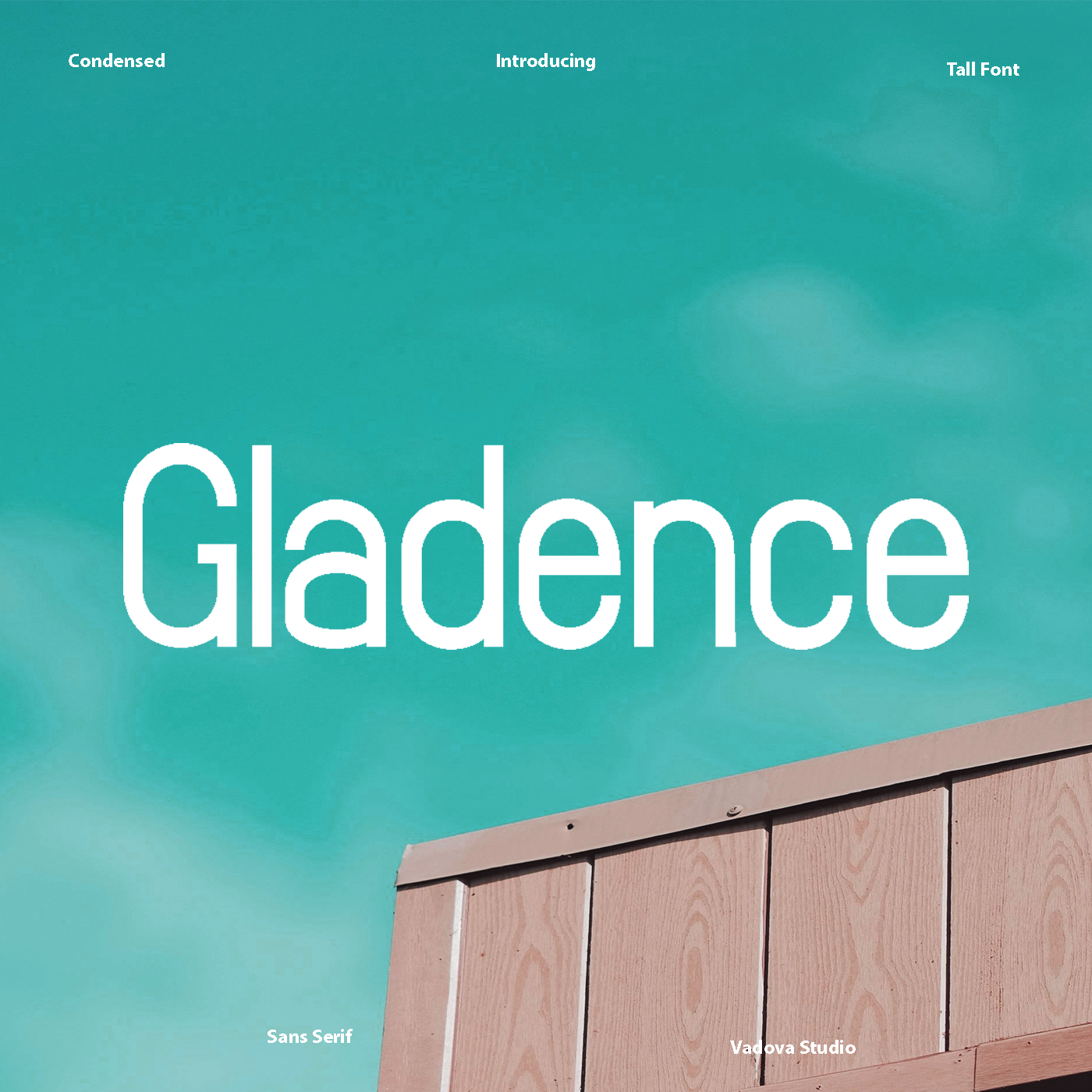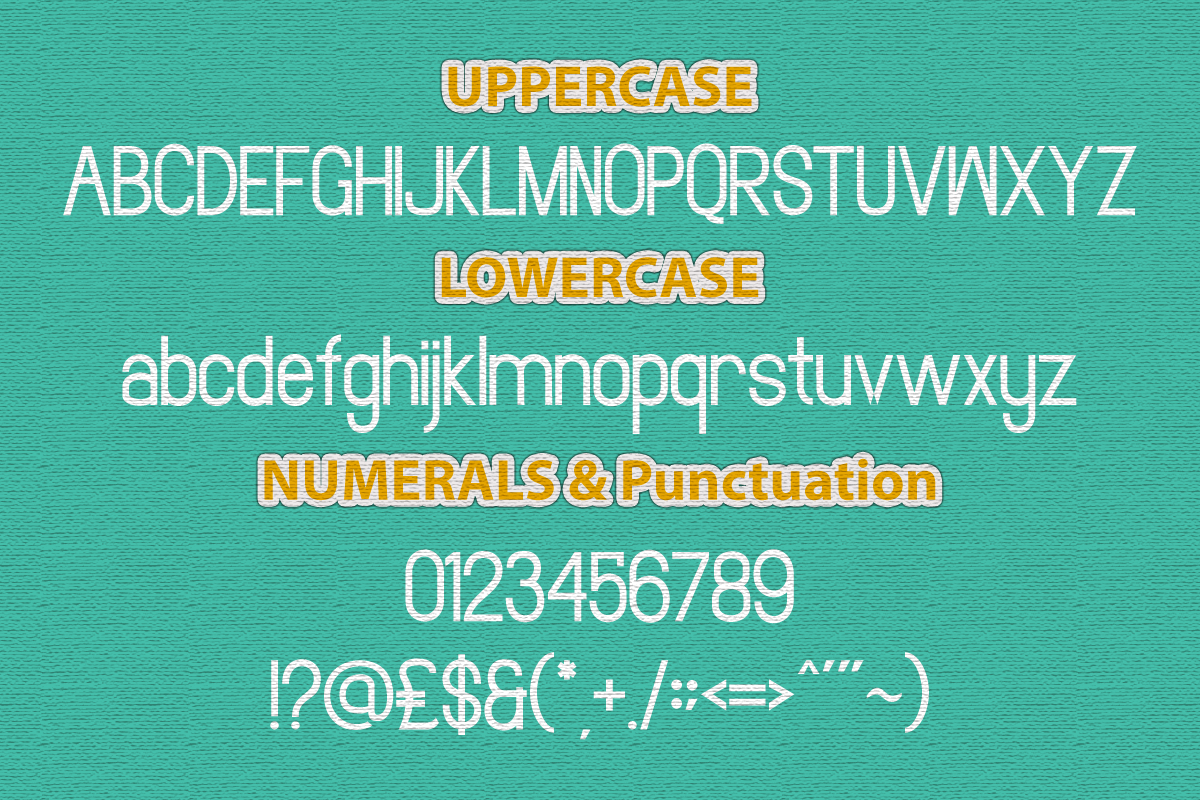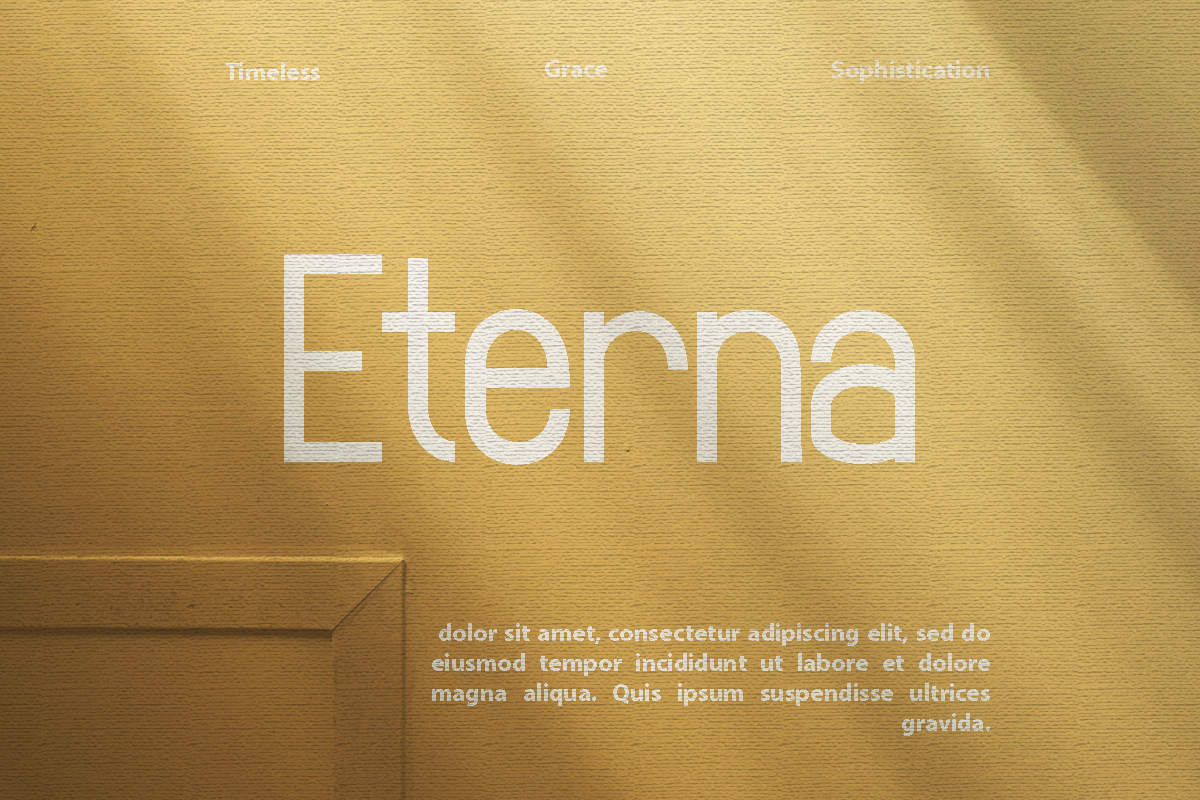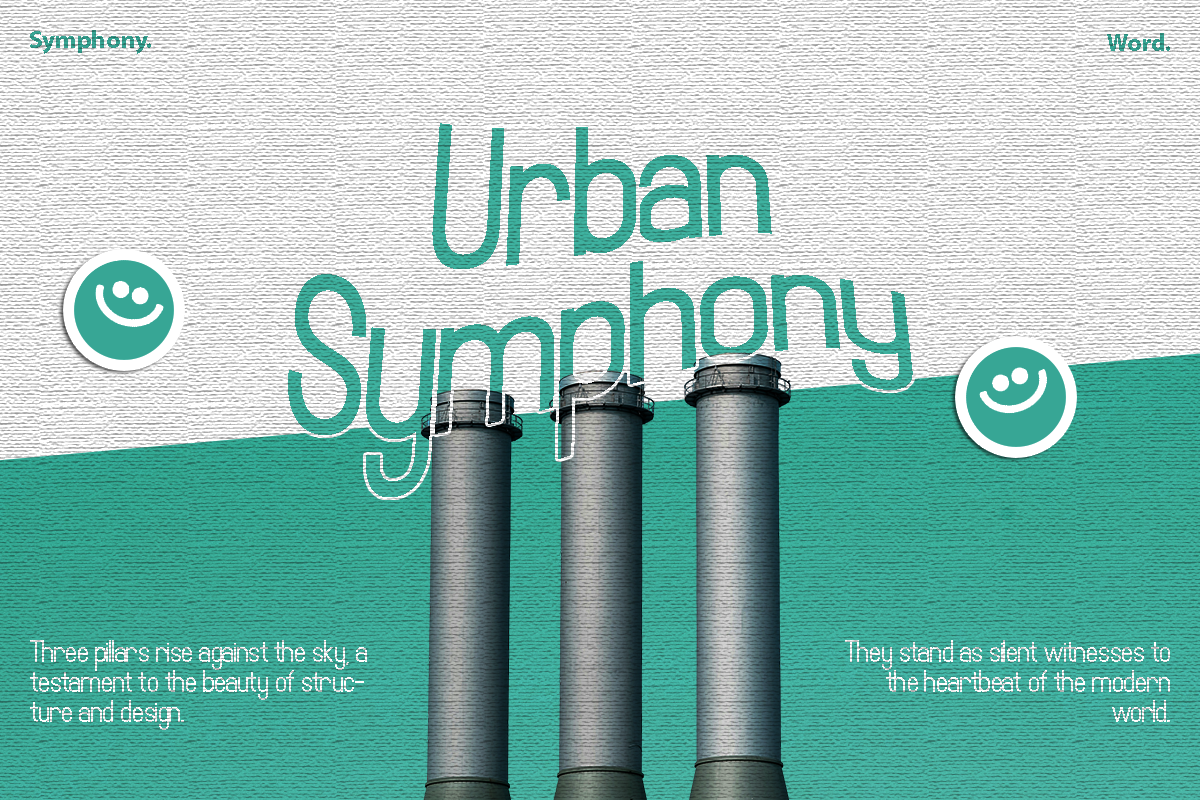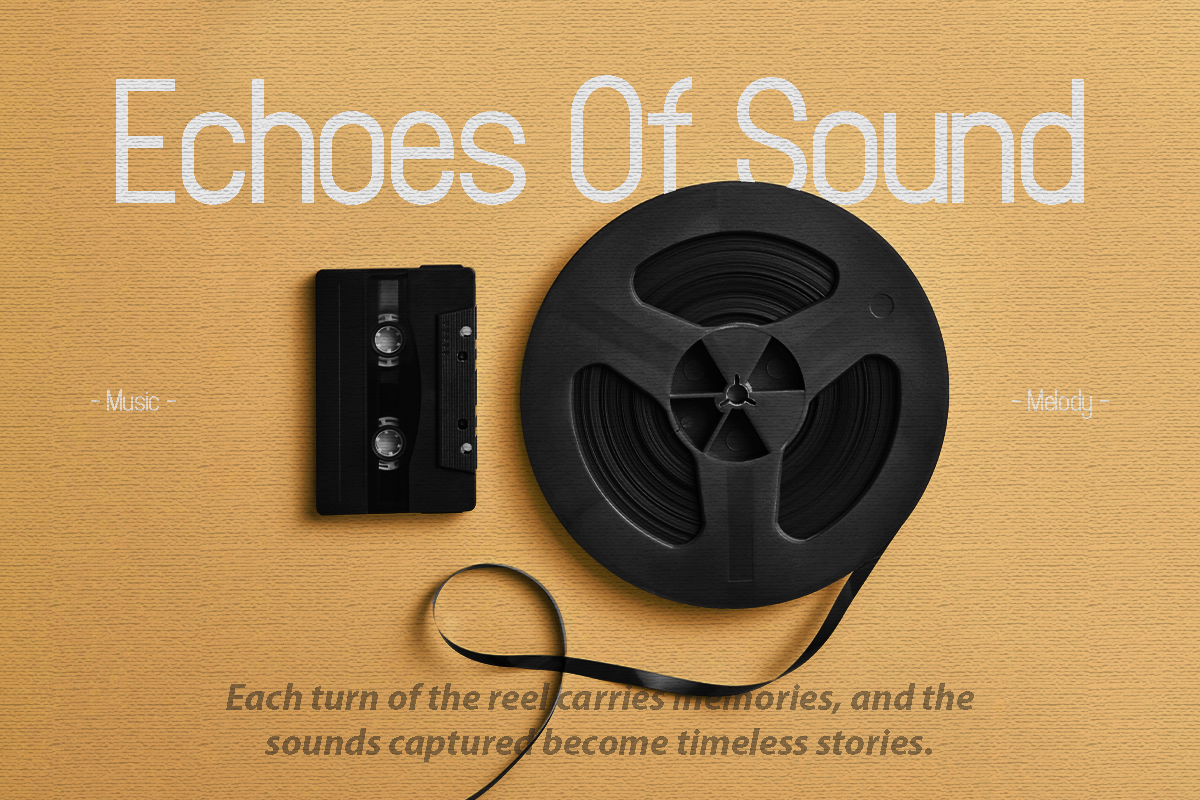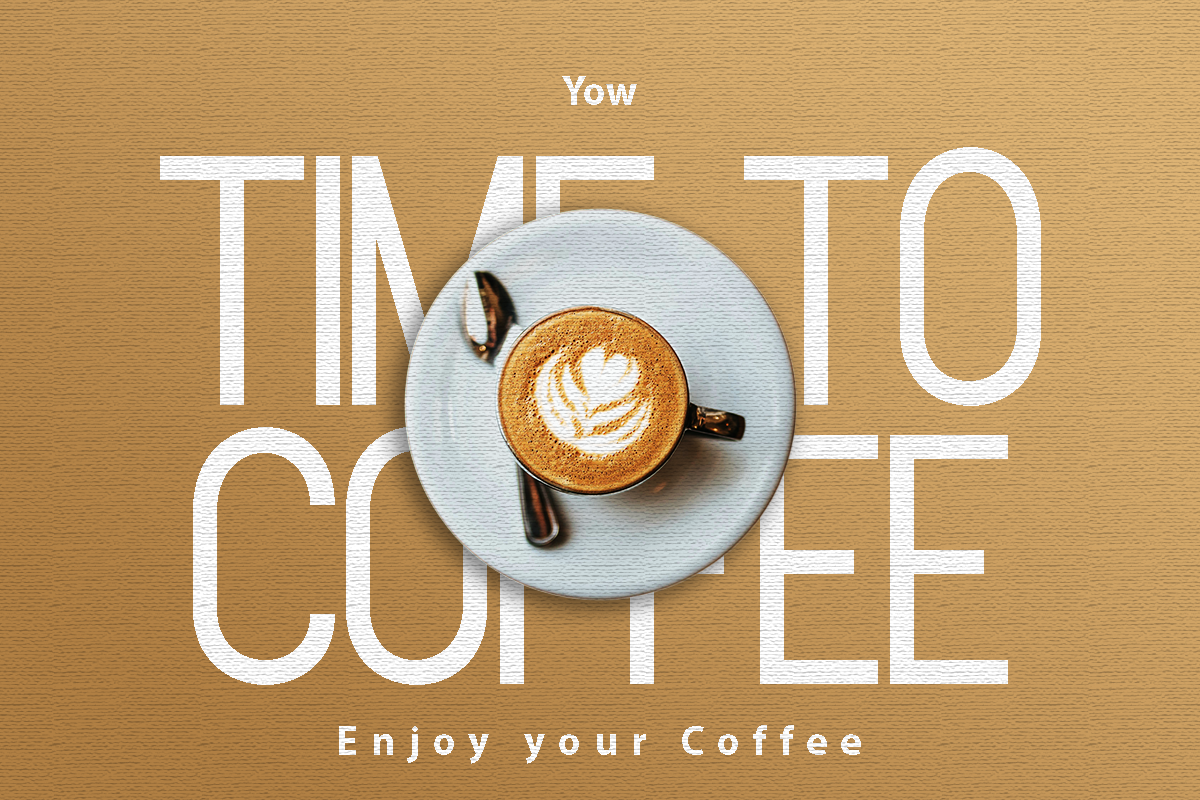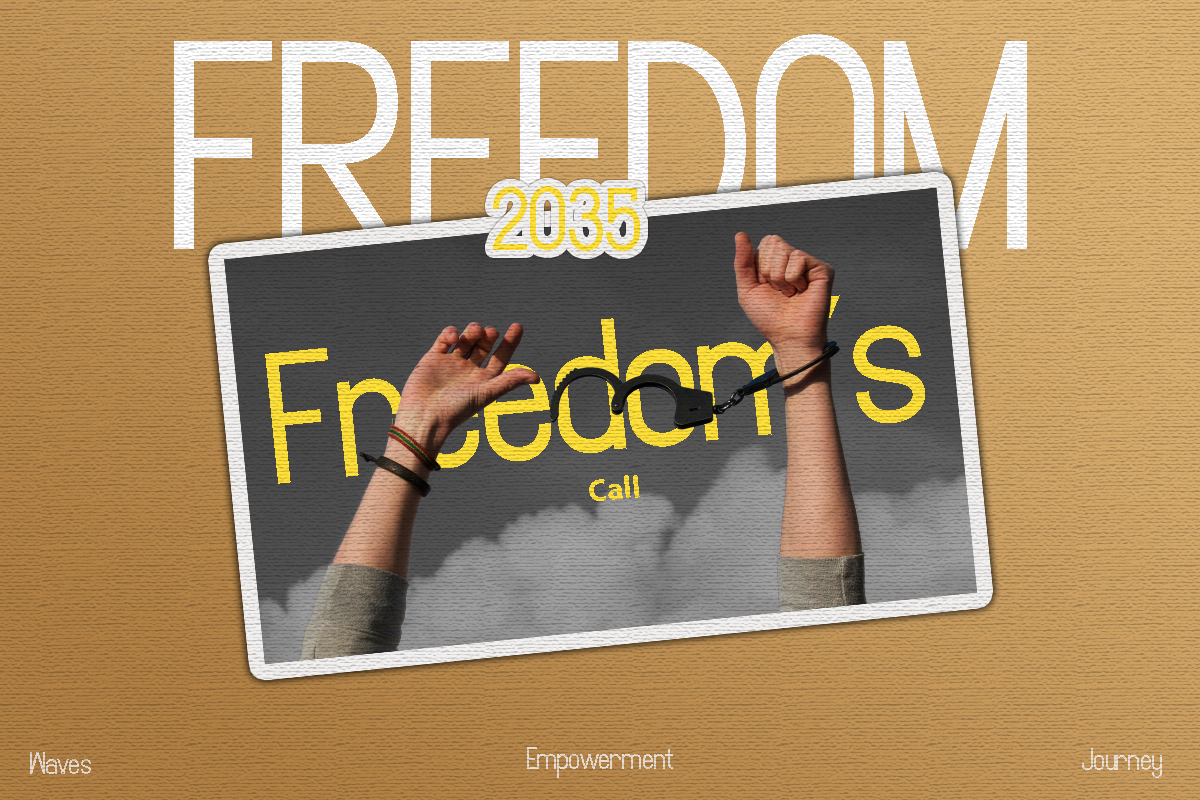
Gladence Condensed Tall Font
Gladence is a tall and condensed sans serif font with a sleek, minimalist structure ideal for professional design. Perfect for clean headlines, branding, posters, and modern editorial layouts, this typeface offers a smooth blend of elegance and clarity. With uppercase, lowercase, numerals, and punctuation, Gladence works flawlessly in tight layouts or as a striking display font. Its airy proportions and subtle sophistication make it a go-to choice for designers seeking simplicity with character.
Gladence Condensed Tall Font is a tall, condensed sans serif typeface with uppercase and lowercase characters, numerals, and punctuation. It is available in TTF, OTF, and WOFF formats.